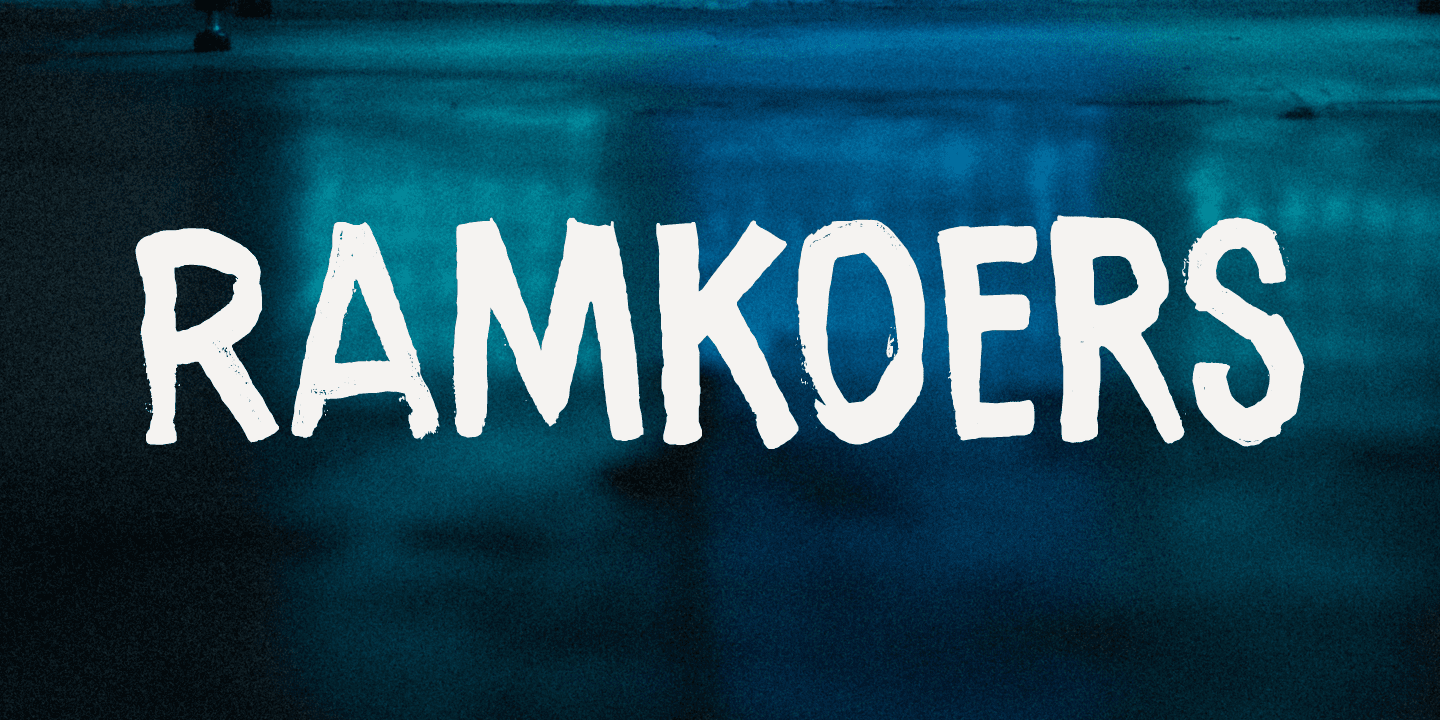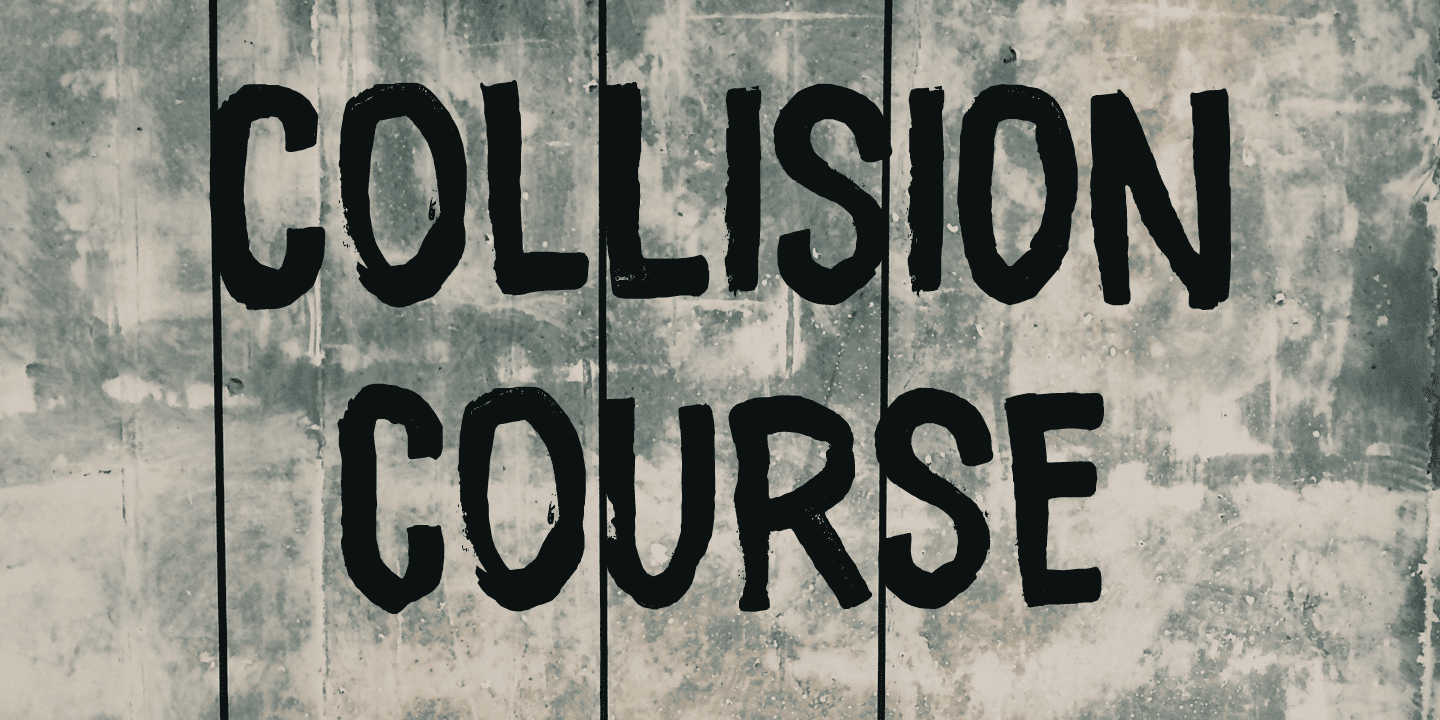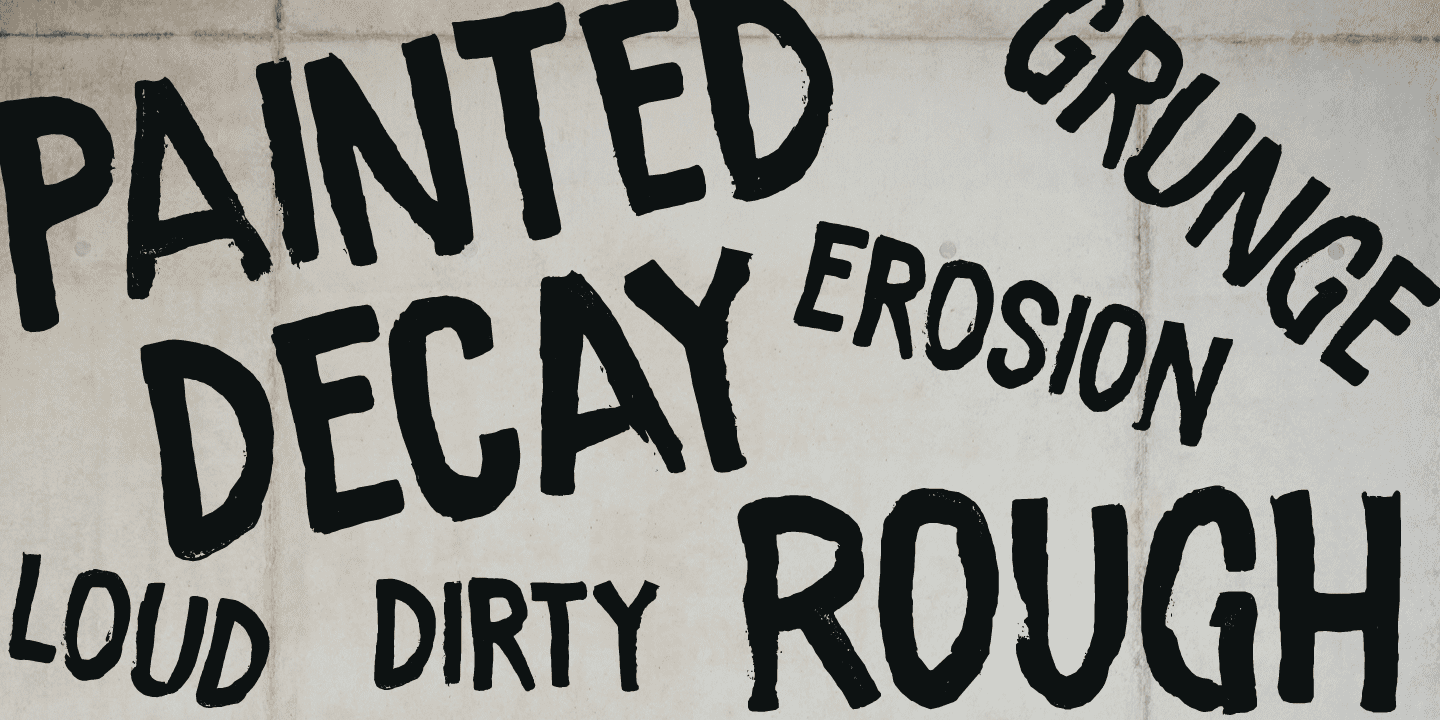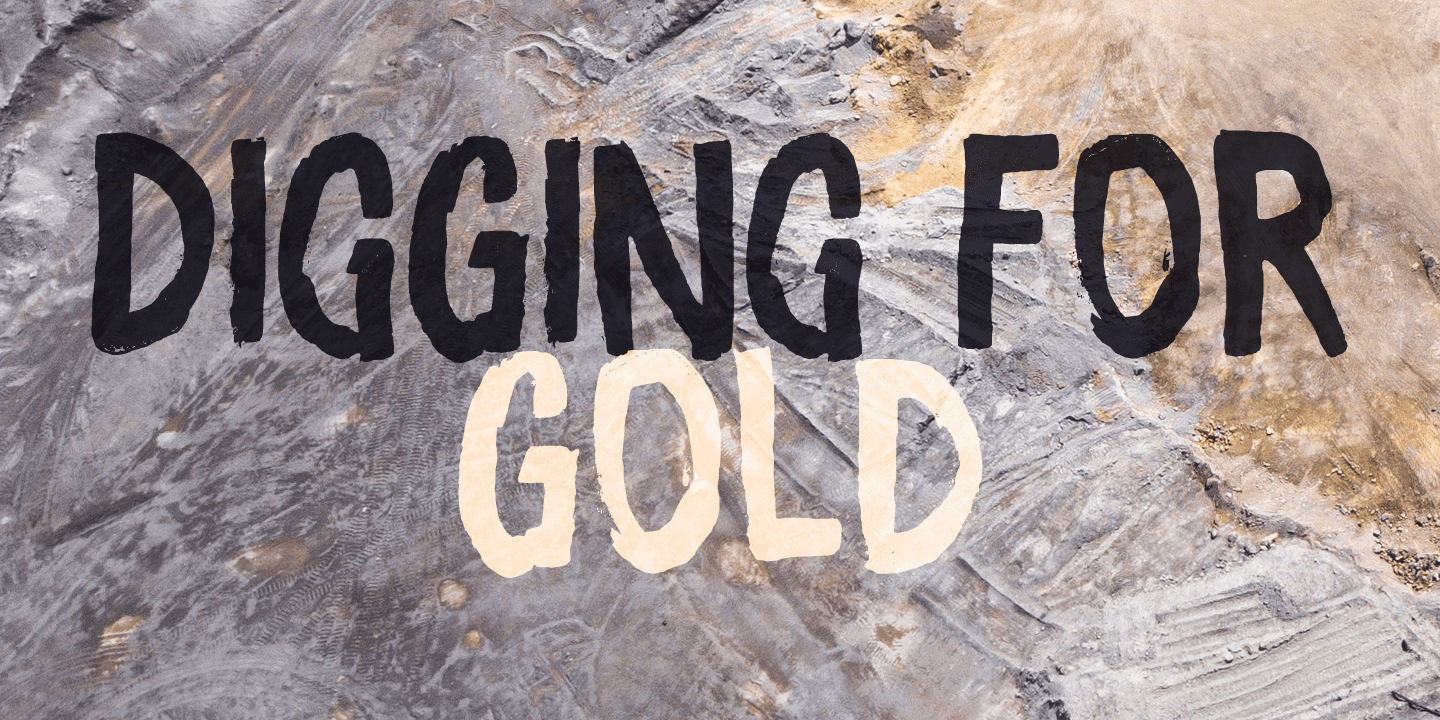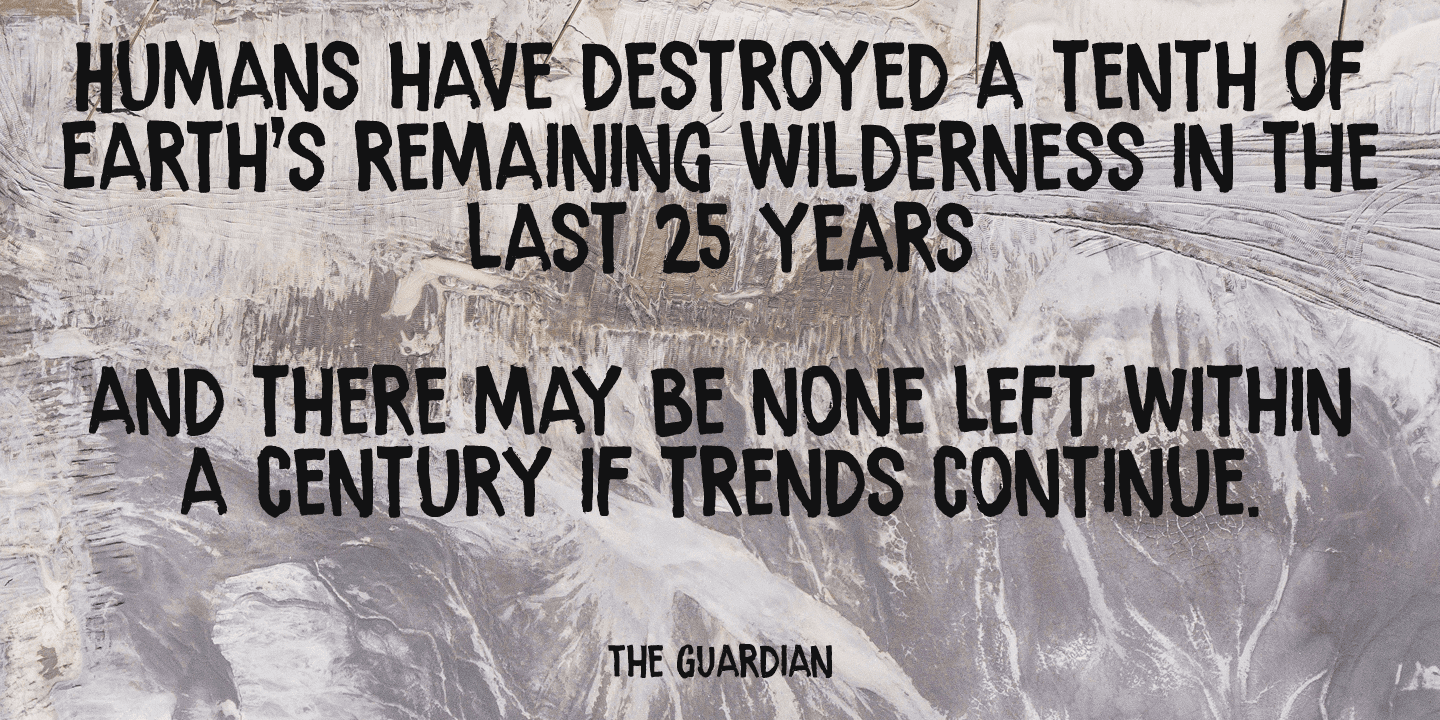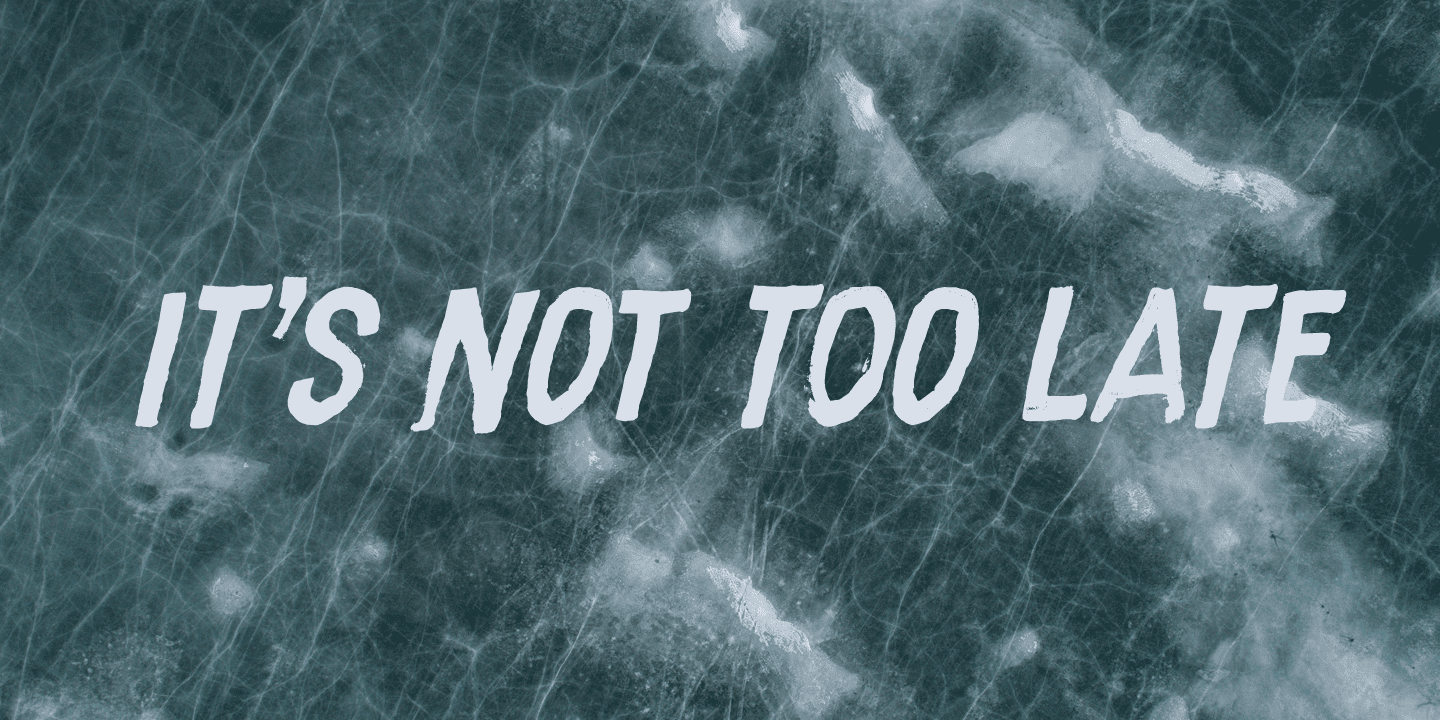
Ramkoers means ‘Collision Course’ in Dutch. I made this font with a bit of salvaged plastic and thick black paint. I carved a wedge out of the plastic and used it as a spatula to apply the paint to the paper. Ramkoers is a bit of a rough & ready grunge font with some jagged edges and wobbly stems. Comes with an abundance of diacritics.